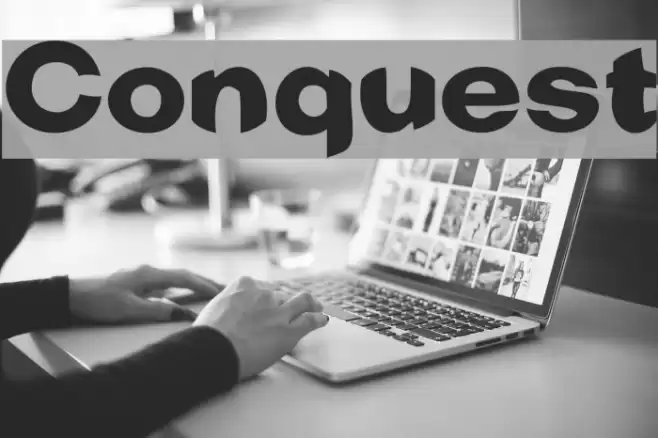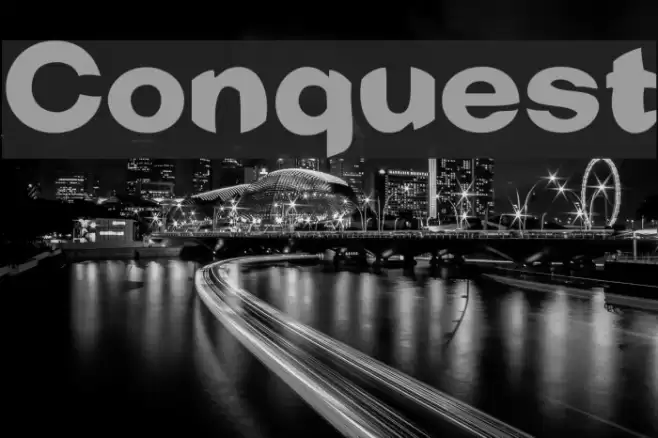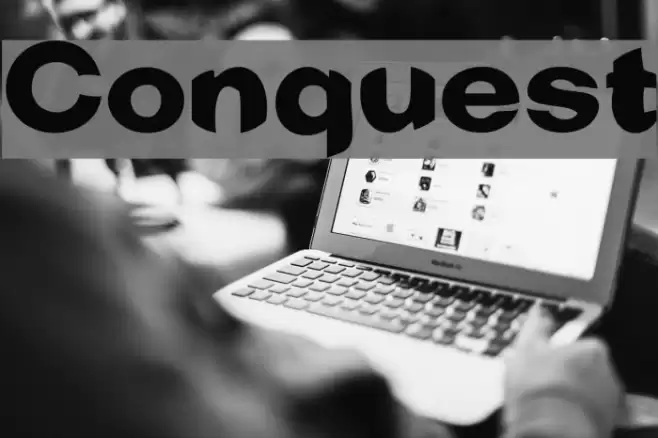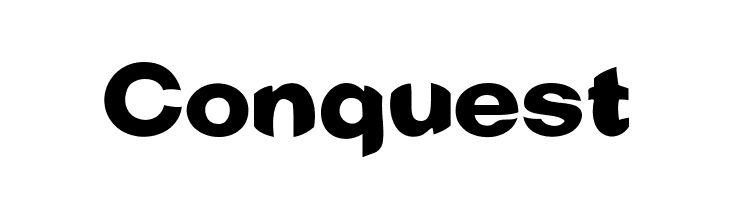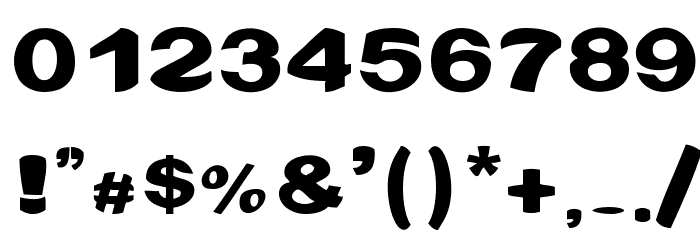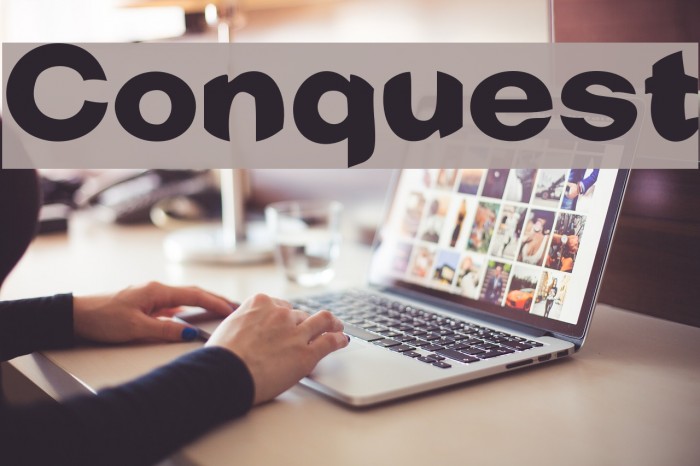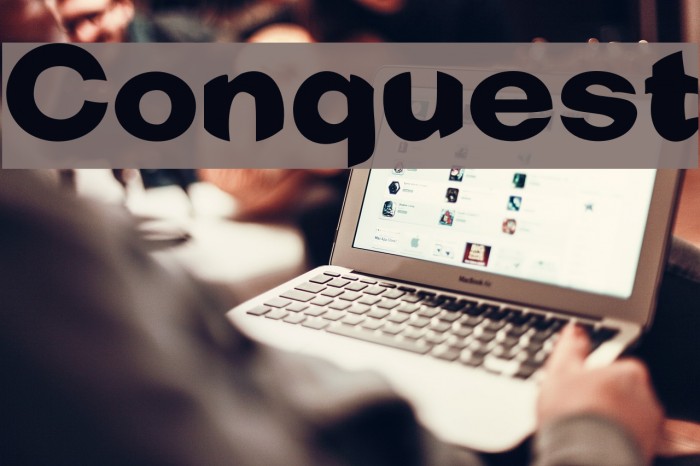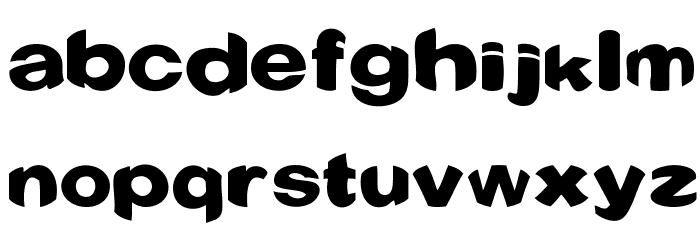
Conquest Font
Conquest Description
This font features bold, rounded characters with a playful and dynamic appearance. The letters are thick and have a slightly irregular shape, giving them a whimsical and friendly feel. The uppercase and lowercase letters maintain a consistent style, with smooth curves and a strong presence. The numbers and special characters follow the same design principles, ensuring uniformity across all glyphs. The font's boldness and unique character shapes make it stand out, suitable for projects that require a fun and engaging visual impact.
A bold, rounded font with a playful and dynamic style from Sci-fi fonts.
- Proposed Projects: Ideal for children's books, playful branding, posters, and creative advertising.
- Overall Style: Playful